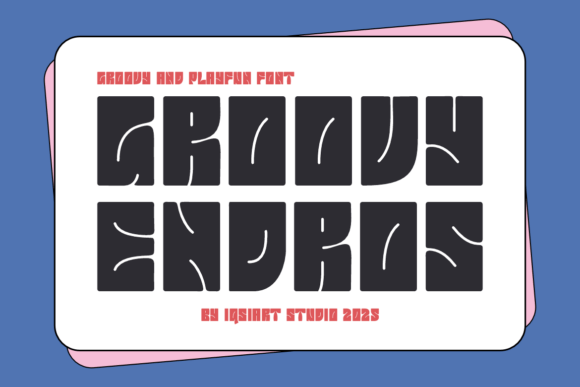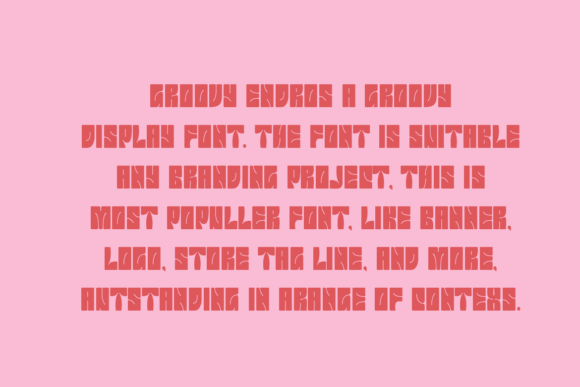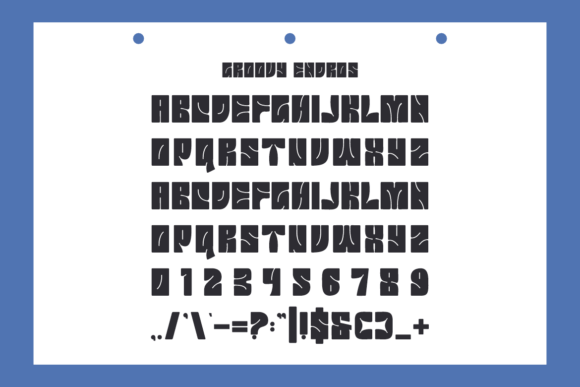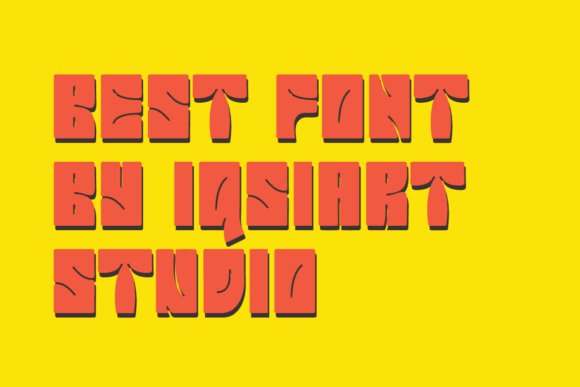
Groovy Endros Font: Bold Retro Typography for Playful Branding!
About the Groovy Endros Font
The wait is over! The incredible Groovy Endros Font is now available for your design toolkit. Groovy Endros is a bold and playful retro-inspired font that captures the vibrant essence of the 70s. With its chunky, curvy letterforms and funky grooves, this font is perfect for posters, album covers, branding, t-shirt designs, and anything that needs a fun and nostalgic vibe. Bring a bold, dynamic energy to your designs with this groovy typeface!
Groovy Endros thrives in large-scale applications like headlines, posters, and logos where its bold personality shines. It’s ideal for brands aiming for a retro, fun, and energetic image—think vintage clothing lines, music festivals, or playful food brands. Avoid using it for body text or UI elements; its chunky forms are not easily legible at smaller sizes.
Pairing Groovy Endros effectively requires considering its playful energy. A clean sans-serif like Futura or a geometric sans-serif like Montserrat would provide a strong contrast and enhance readability in supporting text. Conversely, a delicate script font could add a touch of vintage sophistication, creating a balanced and layered visual effect.
Its core personality is undeniably bold and playful, yet retains a sense of approachability. This makes it suitable for projects needing a vibrant yet friendly feel, effectively communicating excitement and nostalgia without being overwhelming.
Groovy Endros Font Usage Examples
Groovy Endros Font Example